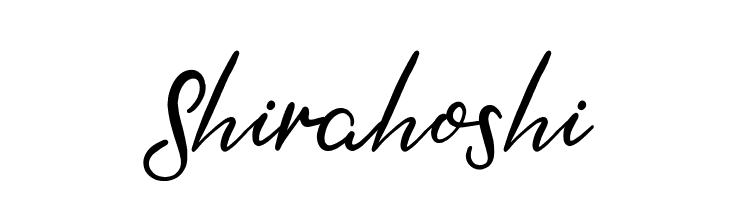
A futuristic, italic font with a gradient line effect, conveying motion and speed.
A modern, rounded geometric font with a clean and cohesive design.
A modern, elegant script font with a handwritten style.
A playful, balloon-like font with rounded, outlined characters.
A bold, 3D futuristic font with outlined, blocky characters.
A playful, hand-drawn font with a whimsical and informal style.
A playful and whimsical font with decorative uppercase and rounded lowercase letters.
A bold, playful handwritten font with flowing, energetic letterforms.
Ornamental font with detailed Christmas wreath illustrations.
A flowing, cursive script font with elegant loops and swashes.